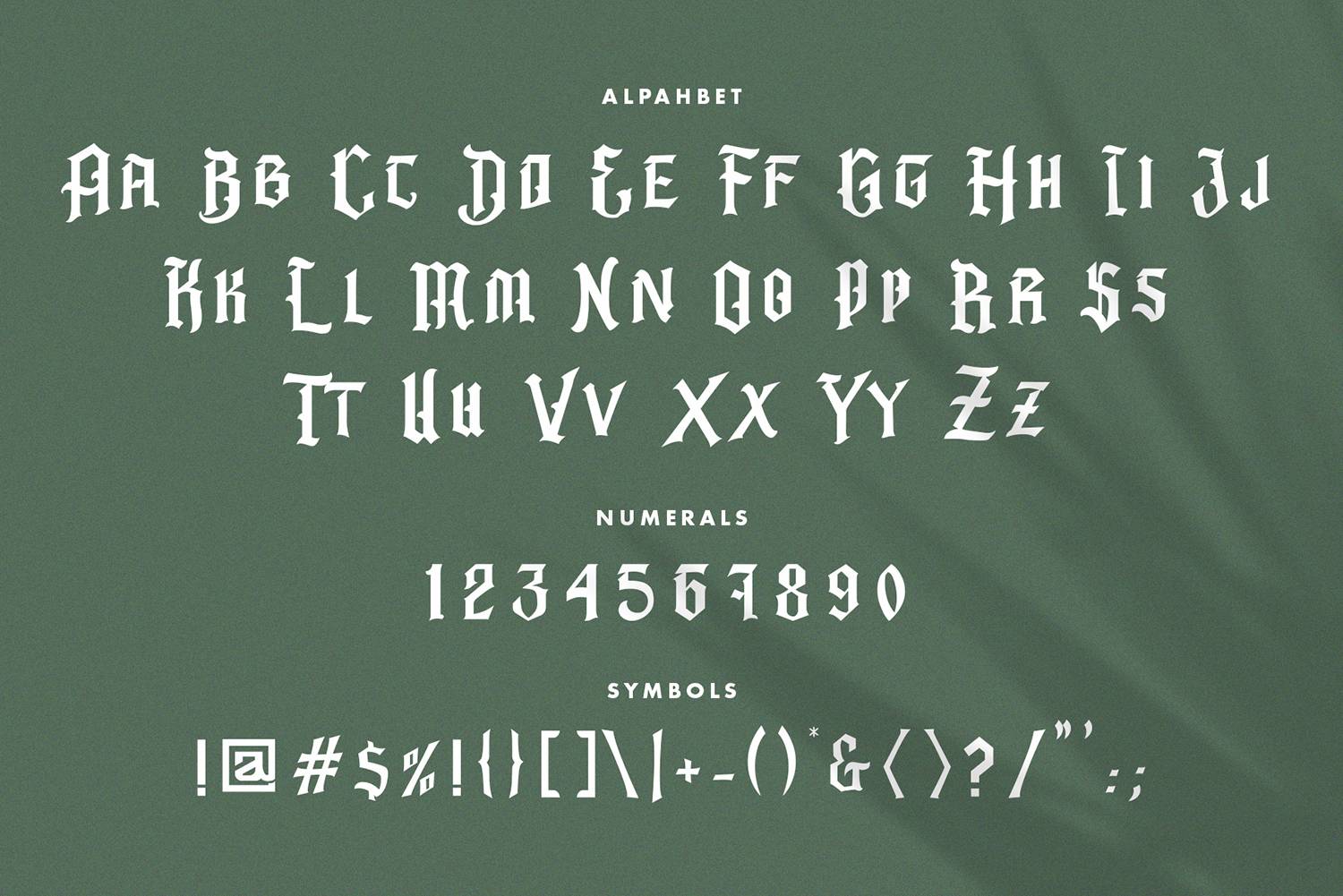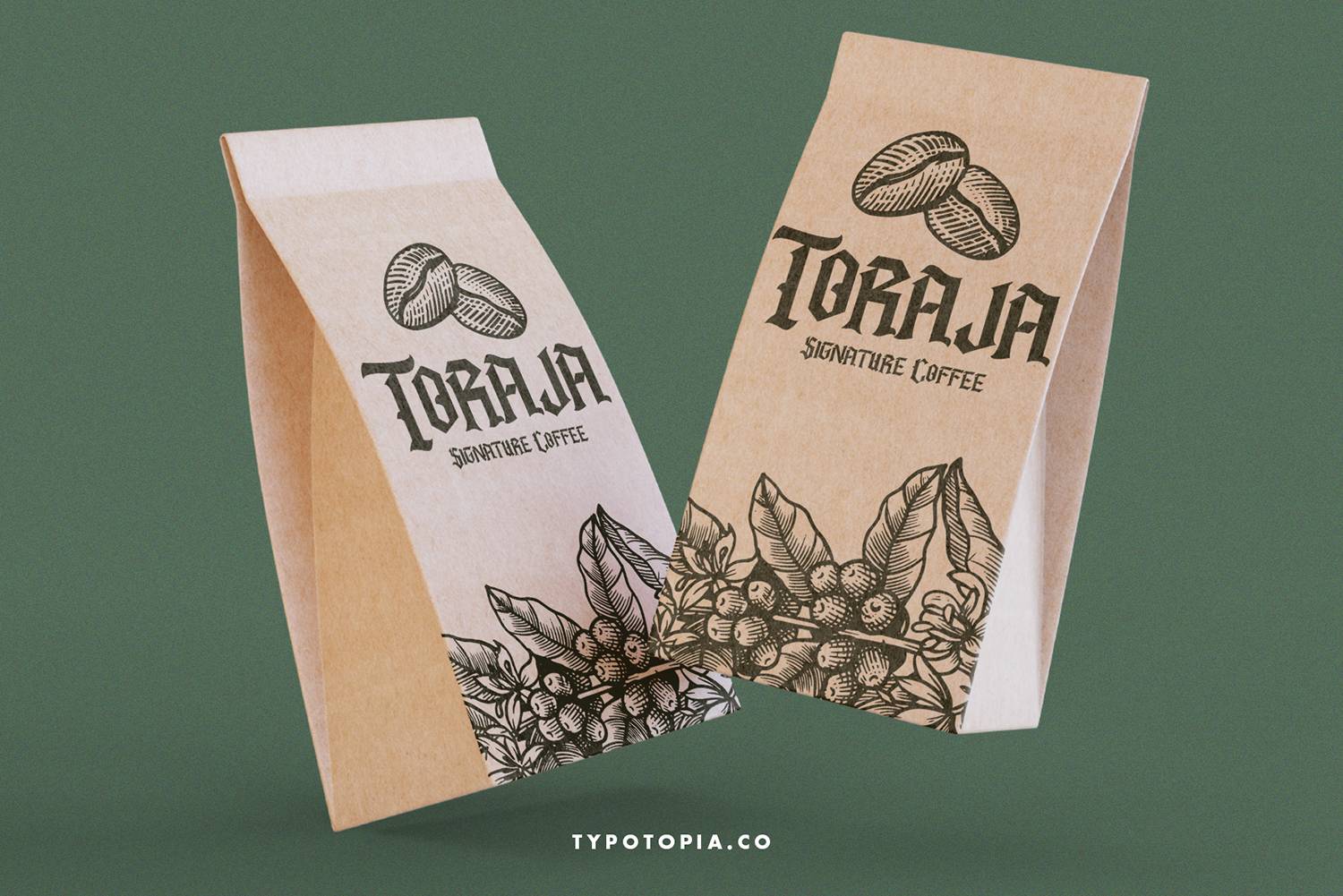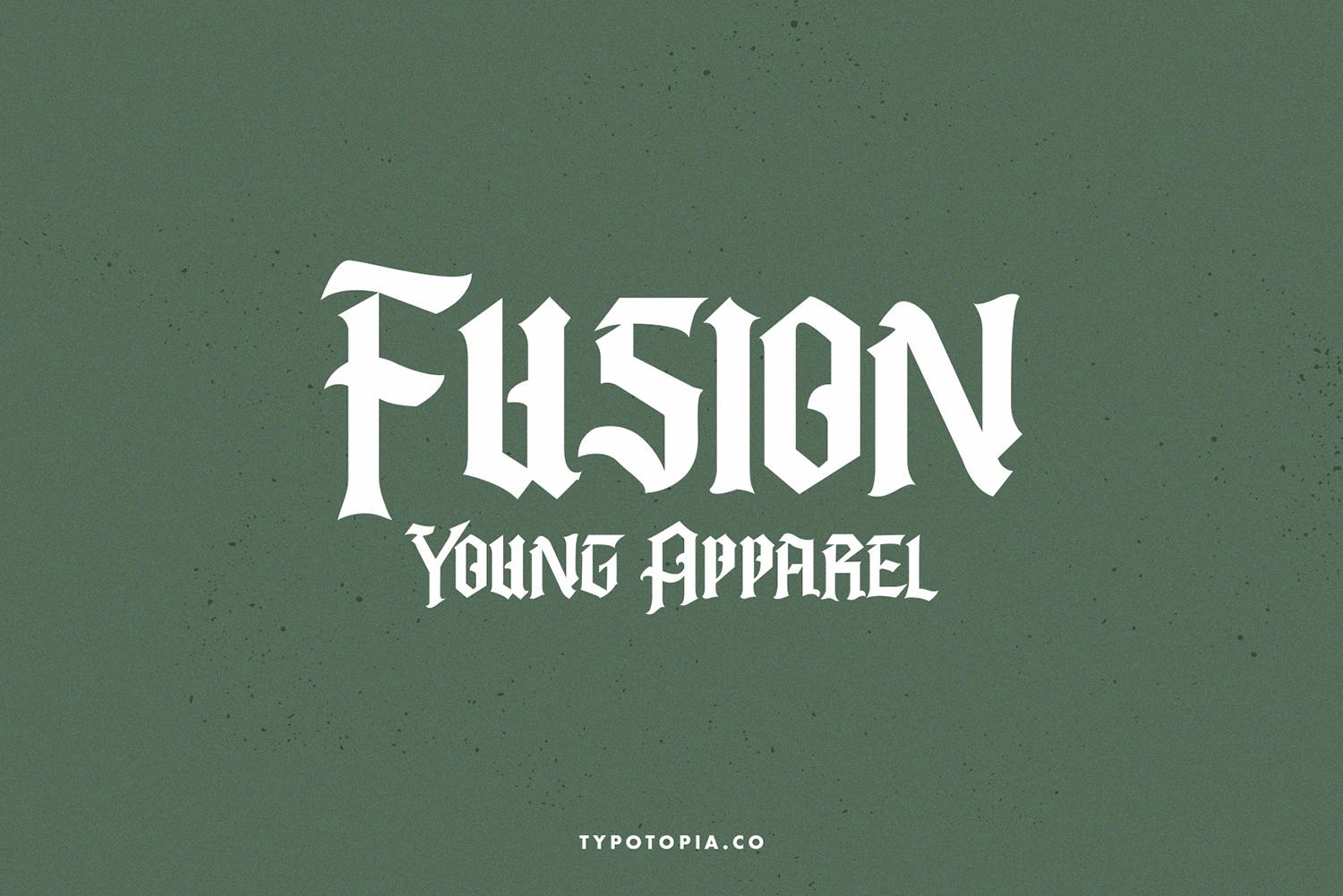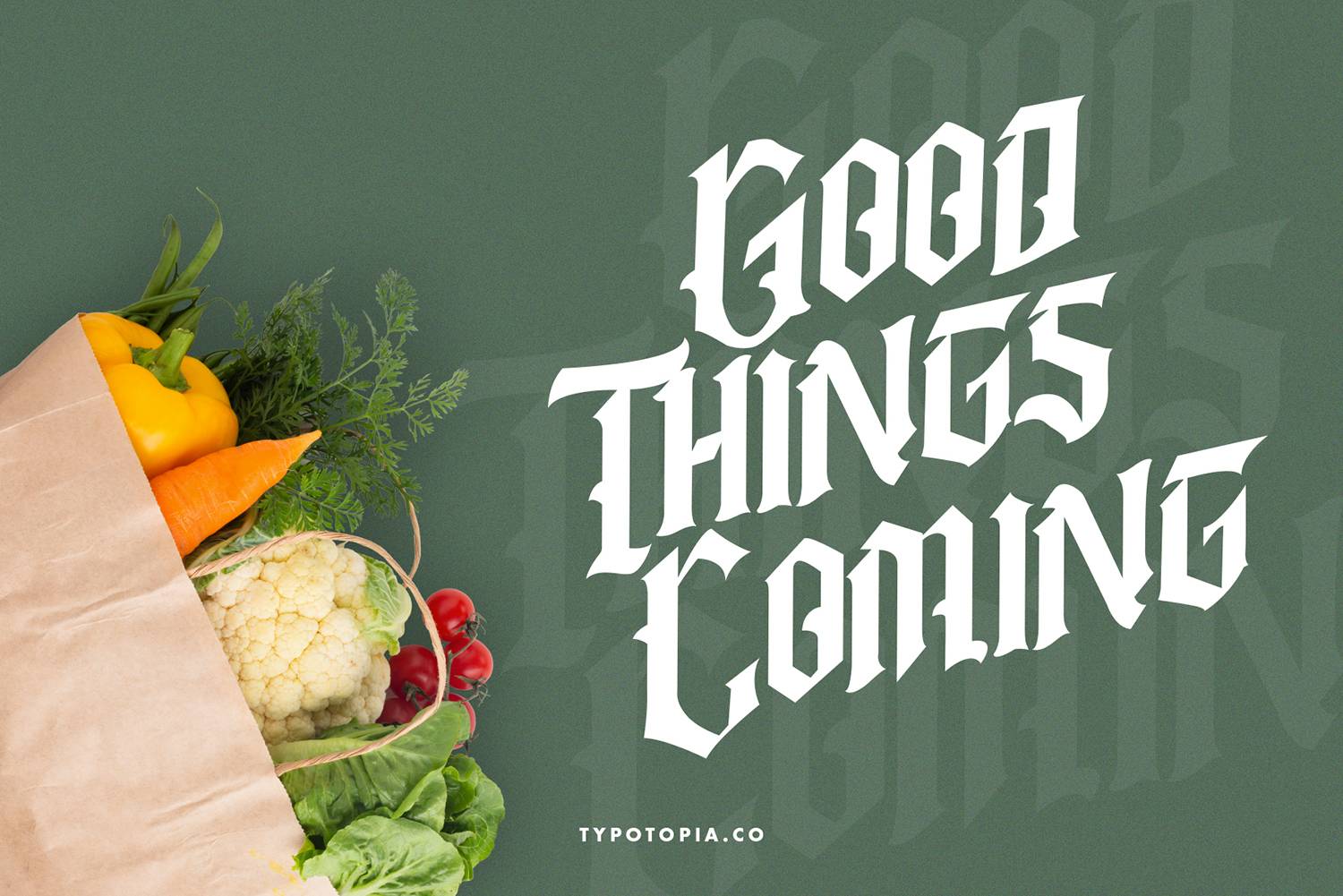
Barbatos is a dramatic blackletter font characterized by bold, angular strokes and sharp serifs, giving it a strong gothic and medieval feel. Its tall, condensed letterforms and high contrast between thick and thin lines make it ideal for distinctive headlines, logos, or branding that aims to evoke a vintage or darkly elegant atmosphere. This font works best in display settings where its ornate style can shine without compromising readability.
Barbatos Font
About Barbatos Font